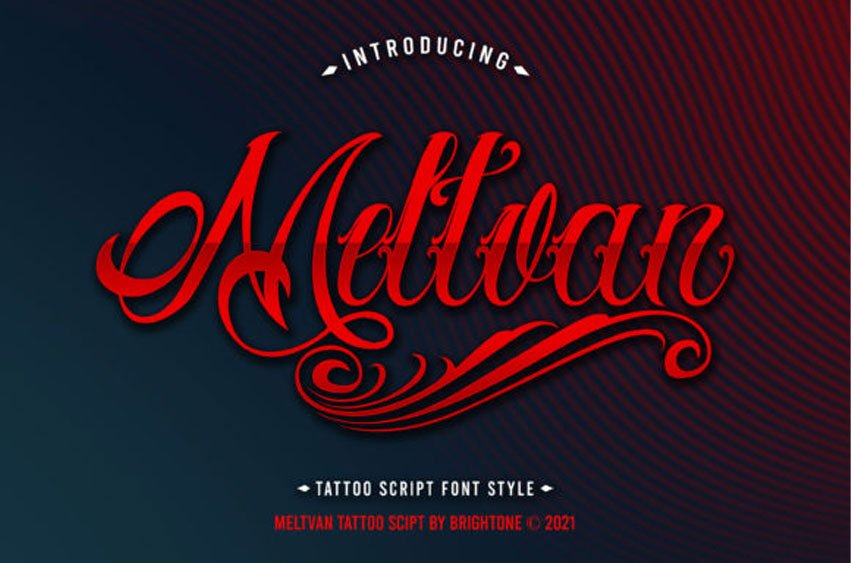
Meltvan Font is an elegant and imposing handwritten font. This font is neatly crafted and highly detailed.
Whatever the topic, Meltvan will be a wonderful asset to your font library, as it has the potential to enhance any creation.